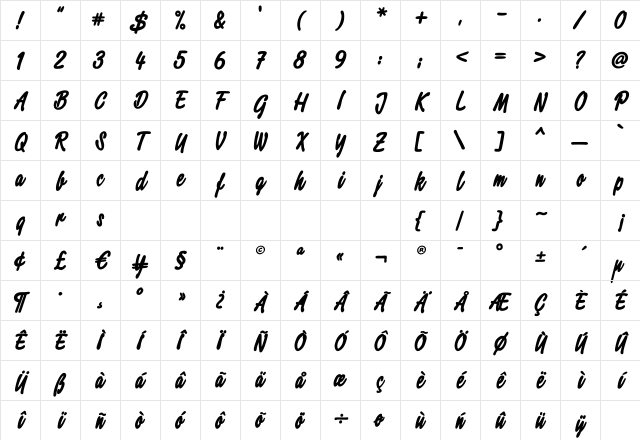
Script2 ExtraBold Free Font
Script2 ExtraBold
Complete Script2 ExtraBold glyph index. Displaying only characters natively supported by Script2 ExtraBold font.
Design Context for Script2
Script2 flows with the natural rhythm of handwritten lettering, making it ideal for designs that call for warmth and personal expression. Its bold stroke weight gives it real presence on the page.
Font Pairing: Combine Script2 with a simple geometric sans for maximum contrast - the tension between flowing curves and clean structure is a classic typographic pairing.
Pro Tip: Use Script2 for short runs of text - names, titles, or taglines. Extended body copy in script faces tires the eye quickly.